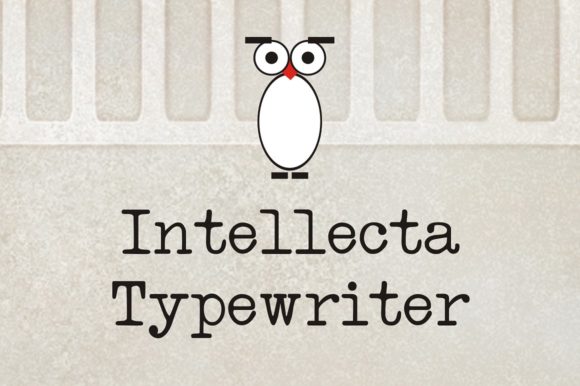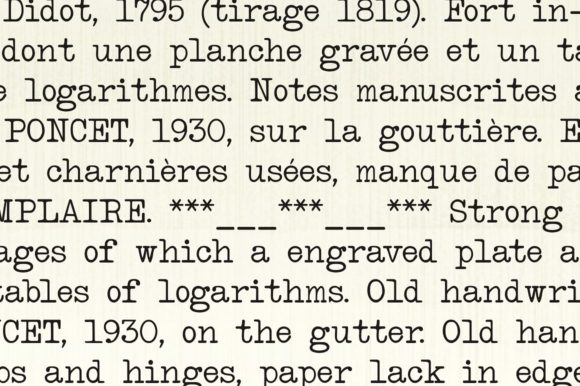
Intellecta Typewriter Font
About the Intellecta Typewriter Font
Make a bold statement with Intellecta Typewriter Font, a powerful and memorable font. The Intellecta Typewriter is an serif font in a typewriter style.
Intellecta Typewriter excels in headlines, short impactful statements, and branding applications where a vintage, slightly rebellious feel is desired. It works particularly well for posters, logos, and packaging designs that benefit from a strong, retro aesthetic. However, its condensed letterforms and inherent stylistic quirks make it unsuitable for body text or long-form content; readability suffers in smaller sizes or within dense paragraphs. Avoid using it in user interfaces.
The font’s personality is bold and assertive, yet with a touch of vintage charm. This makes it ideal for brands seeking to convey a sense of history, authenticity, or even a slightly edgy sophistication.
Pairing Intellecta Typewriter with a clean sans-serif like Helvetica Neue for body text provides a strong contrast and excellent readability. For a more playful approach, consider pairing it with a rounded geometric sans-serif. Alternatively, a classic serif like Garamond could complement its vintage feel, offering a sophisticated balance.
Intellecta Typewriter Font Usage Examples
Intellecta Typewriter Font Example